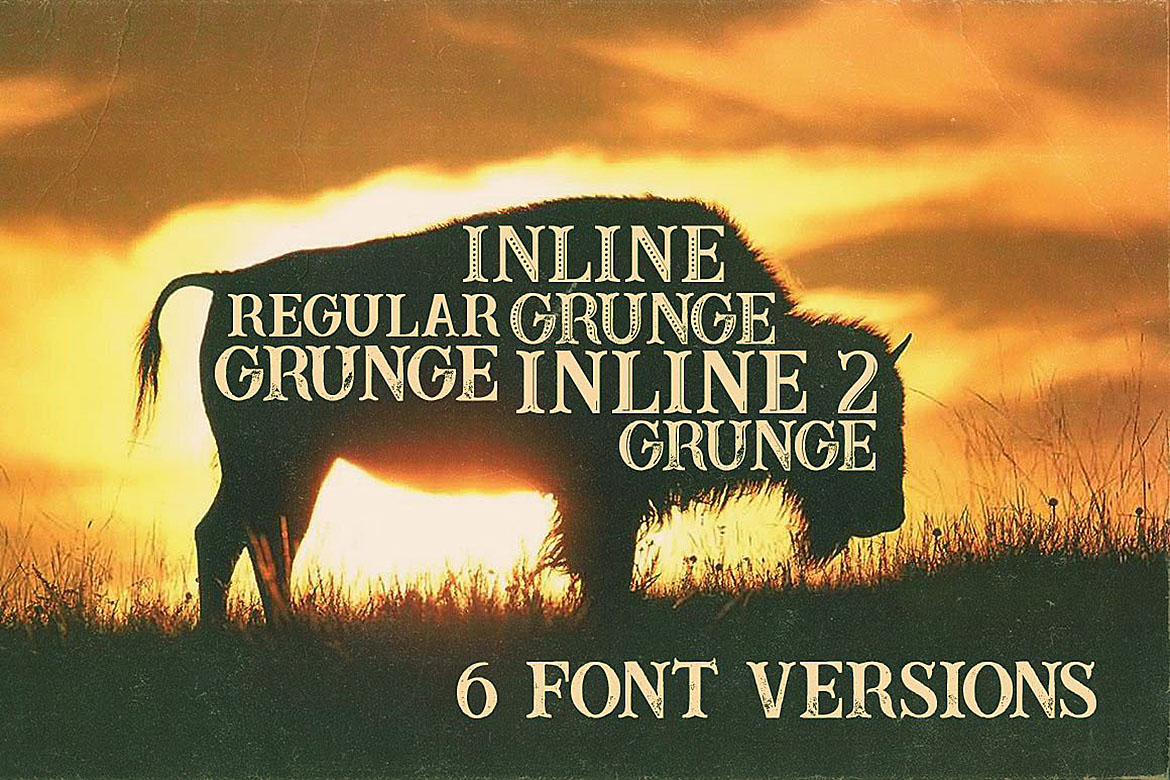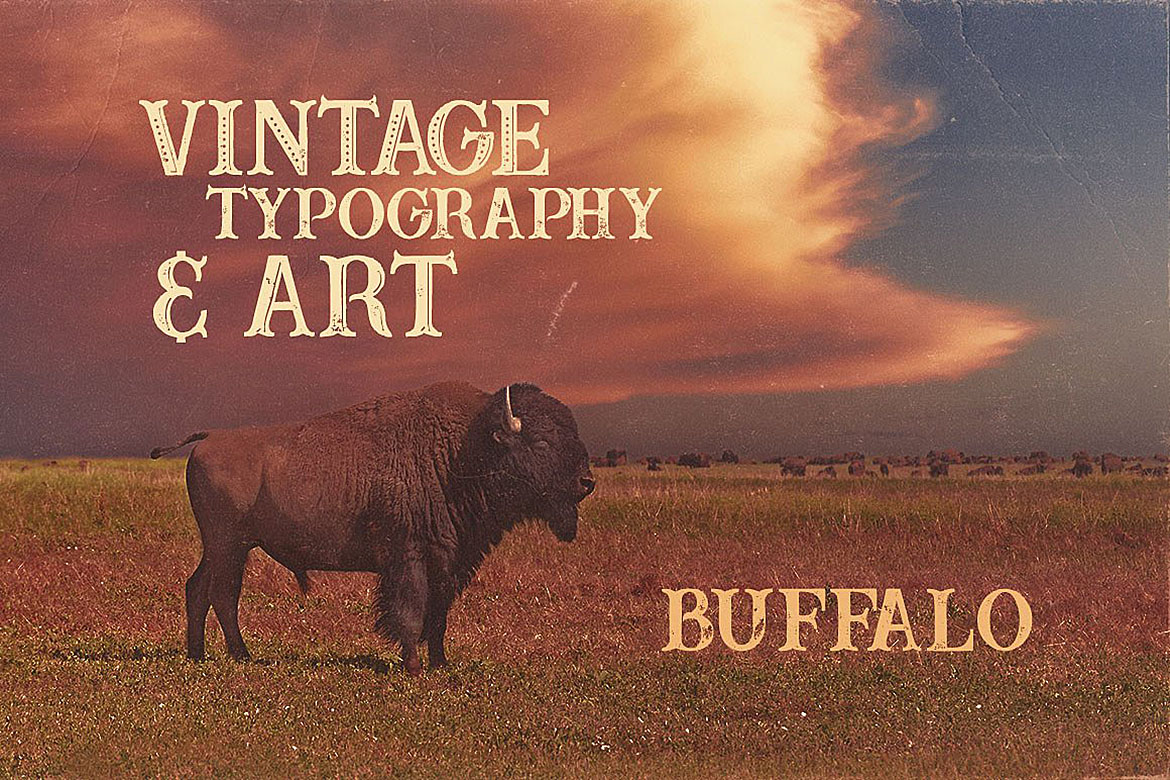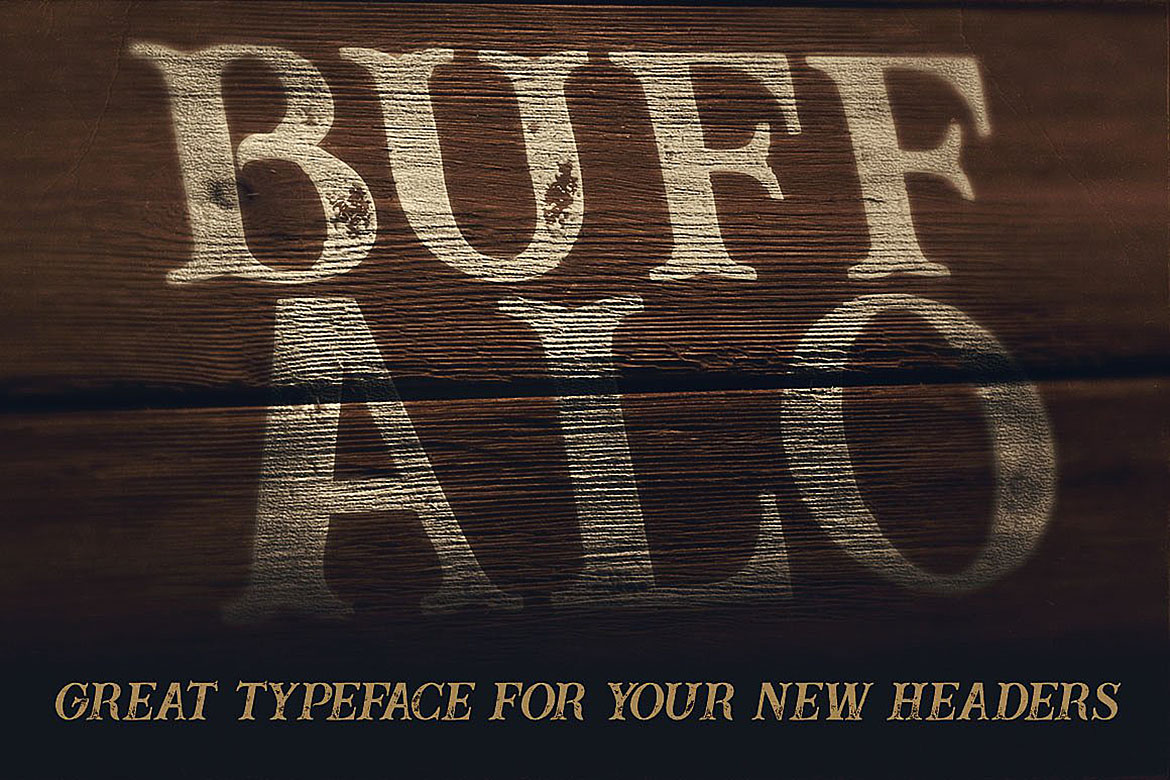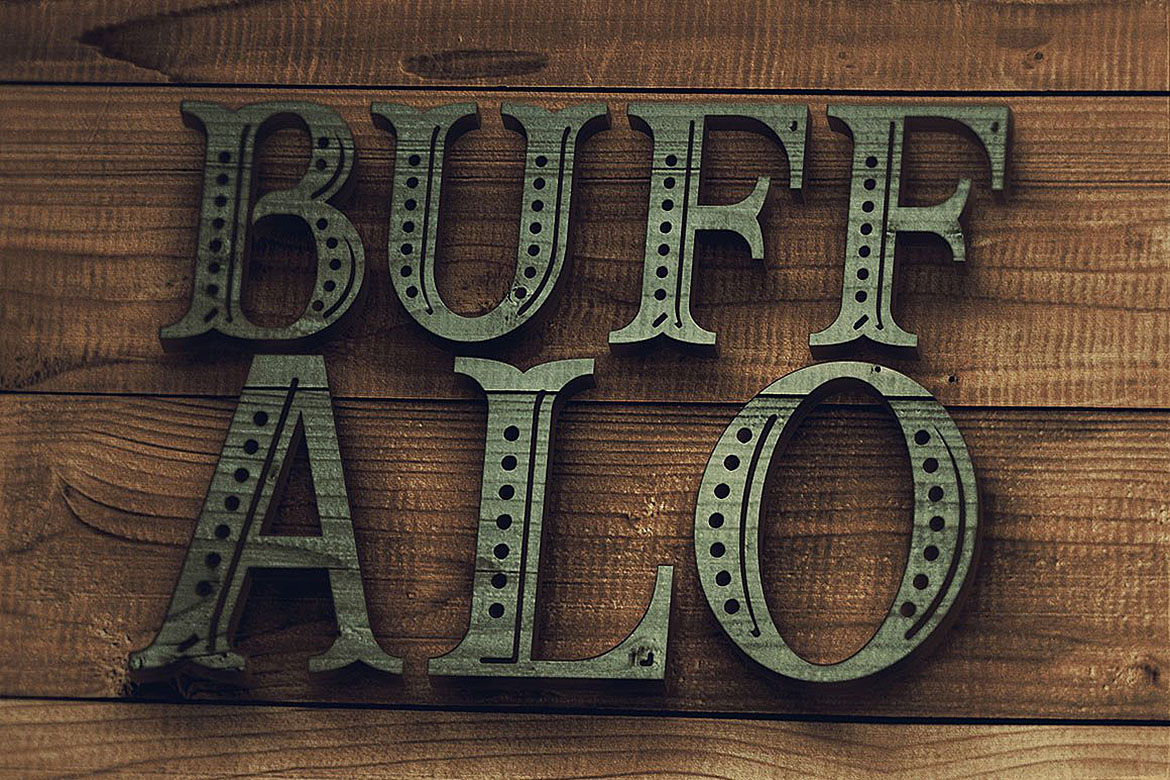
Introducing Buffalo Font: A Timeless Serif Style for Modern Designs
In the world of typography, fonts play a crucial role in conveying the tone and aesthetic of a design. For designers and crafters looking to add a touch of nostalgia to their work, the Buffalo font is an excellent choice. This stunning serif styled vintage font is perfect for creating unique and captivating designs that stand out from the crowd.
The Charm of Buffalo Font
Buffalo font is a beautifully crafted serif font that exudes a sense of classic elegance. Its vintage charm is reminiscent of bygone eras, evoking feelings of nostalgia and sophistication. The font’s serif style adds a level of refinement and luxury, making it ideal for designs that require a touch of high-end flair.
Versatility in Modern Designs
One of the standout features of Buffalo font is its versatility. Despite its vintage roots, this font looks great in modern designs, adding a unique touch to any project. Whether you’re working on a logo, branding materials, or website design, Buffalo font is an excellent choice. Its classic style ensures that it won’t go out of fashion anytime soon, making it a valuable addition to any designer’s toolkit.
Key Features of Buffalo Font
- Serif Style: Buffalo font features a classic serif style that adds a touch of sophistication to any design.
- Vintage Charm: The font’s vintage roots give it a unique and captivating aesthetic that’s perfect for designs that require a nostalgic feel.
- High-End Flair: The font’s refined style makes it ideal for luxury brands and high-end designs.
- Versatility: Buffalo font looks great in modern designs, making it a versatile choice for a wide range of projects.
Using Buffalo Font in Your Designs
Buffalo font is easy to use and can be incorporated into a wide range of designs. Here are a few ideas to get you started:
- Logos and Branding: Use Buffalo font to create a unique and memorable logo that stands out from the crowd.
- Website Design: Add a touch of elegance to your website design with Buffalo font, perfect for headers, titles, and other design elements.
- Print Materials: Use Buffalo font in print materials such as brochures, flyers, and business cards to add a touch of sophistication.
- Crafting and DIY: Buffalo font is also perfect for crafters and DIY enthusiasts looking to add a personal touch to their projects.
Why Choose Buffalo Font?
With so many fonts available, why choose Buffalo font? Here are a few reasons why this font stands out:
- Unique Aesthetic: Buffalo font has a unique and captivating aesthetic that’s hard to find in other fonts.
- High-Quality Design: The font is beautifully crafted with attention to detail, ensuring a high-quality design that looks great in any project.
- Easy to Use: Buffalo font is easy to use and can be incorporated into a wide range of designs, making it a versatile choice for designers and crafters.
In conclusion, Buffalo font is a stunning serif styled vintage font that’s perfect for adding a touch of design from years past. Its versatility, classic style, and high-end flair make it an excellent choice for designers and crafters looking to create unique and captivating designs. Whether you’re working on a logo, website design, or print materials, Buffalo font is a great option that’s sure to impress.